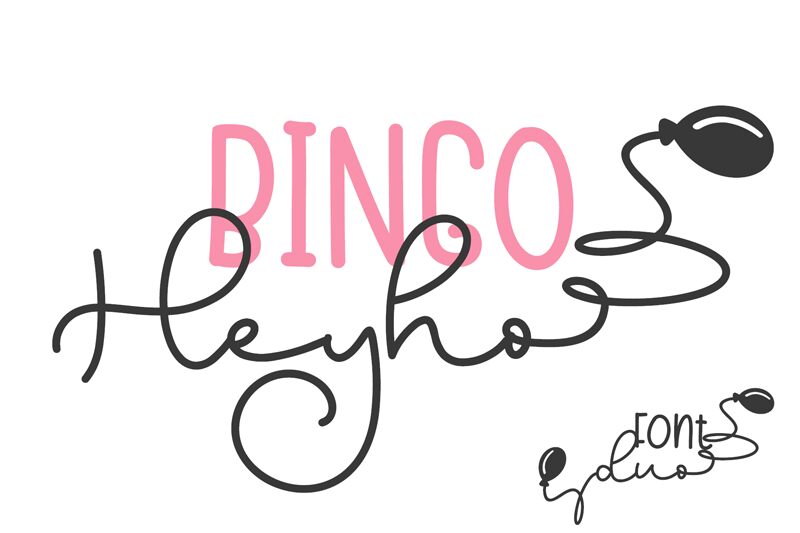
Bingo Heyho Monoline, a creation by Bearytype, is a semi-light, handwritten font that brings a luxurious touch to any design project. With its versatile duo font consisting of both script and sans serif styles, it offers endless creative possibilities.
Whether you're designing elegant wedding invitations, sophisticated logos, or trendy branding materials, Bingo Heyho Monoline's PUA encoding ensures easy access to its stunning range of glyphs and ligatures.
Bingo Heyho Monoline